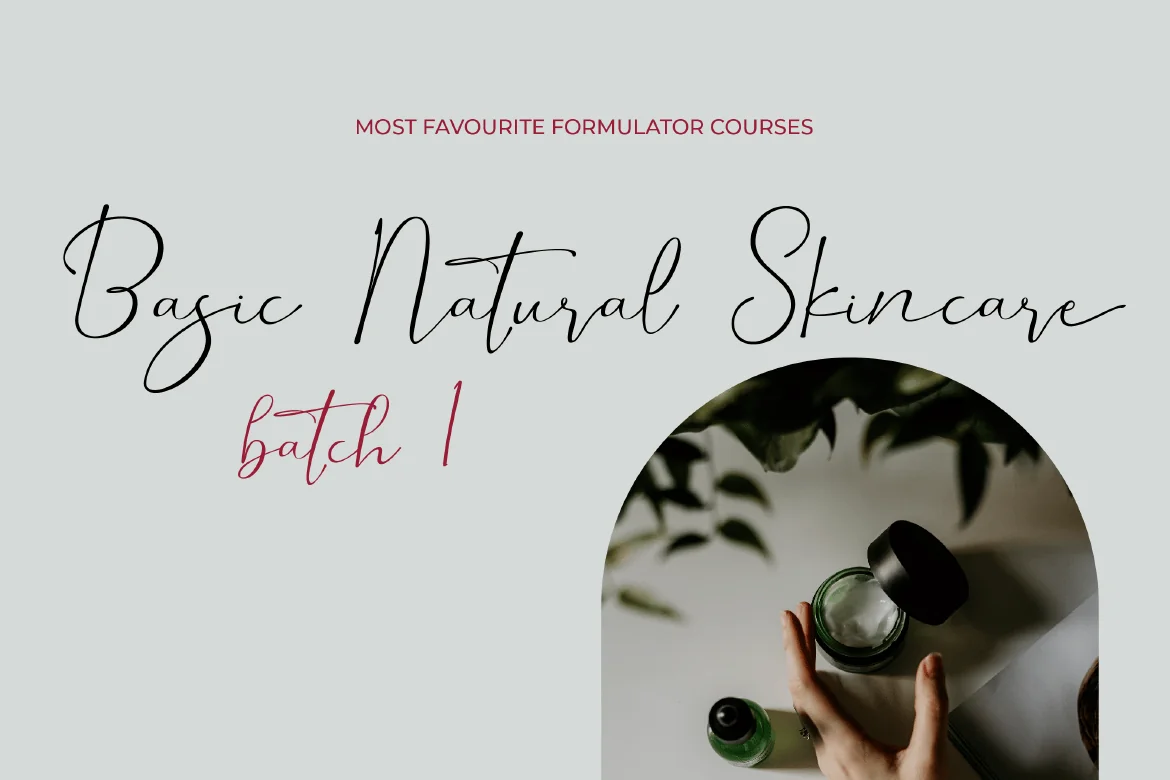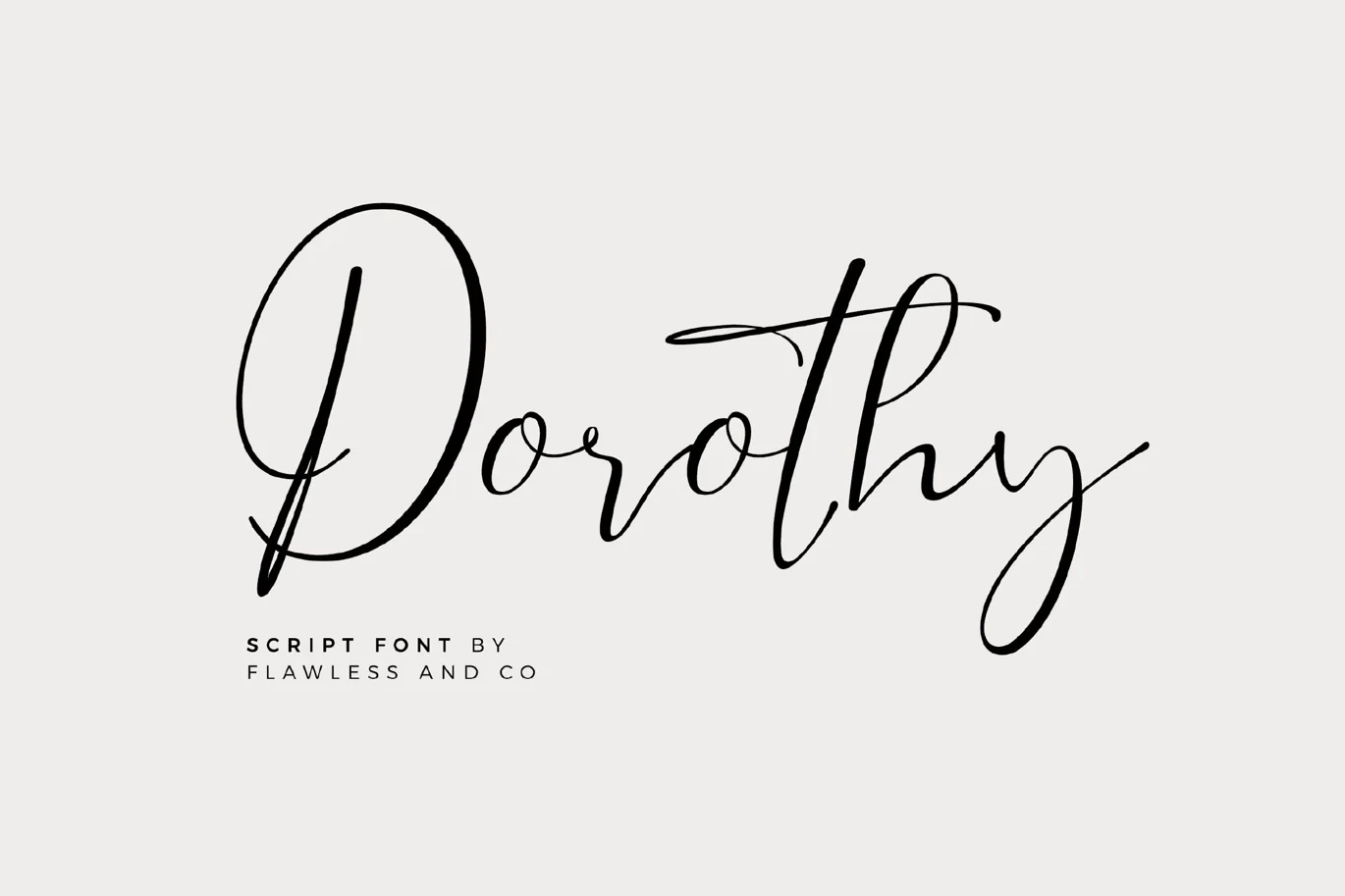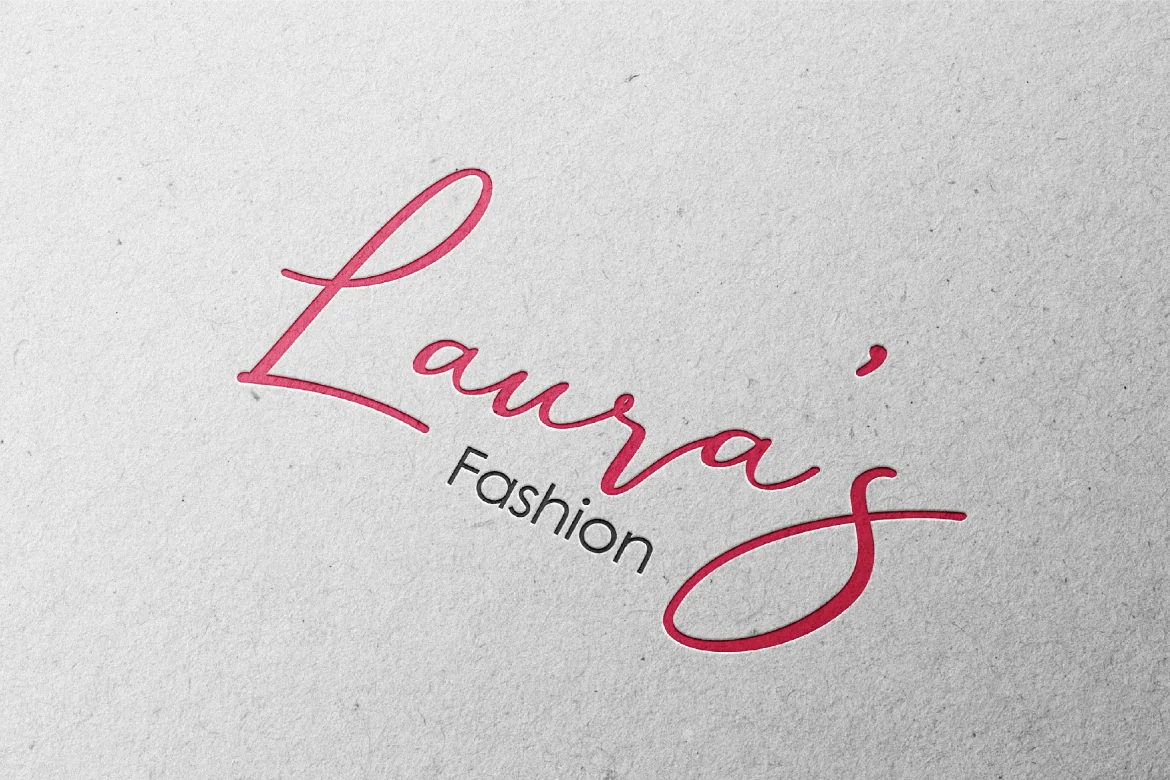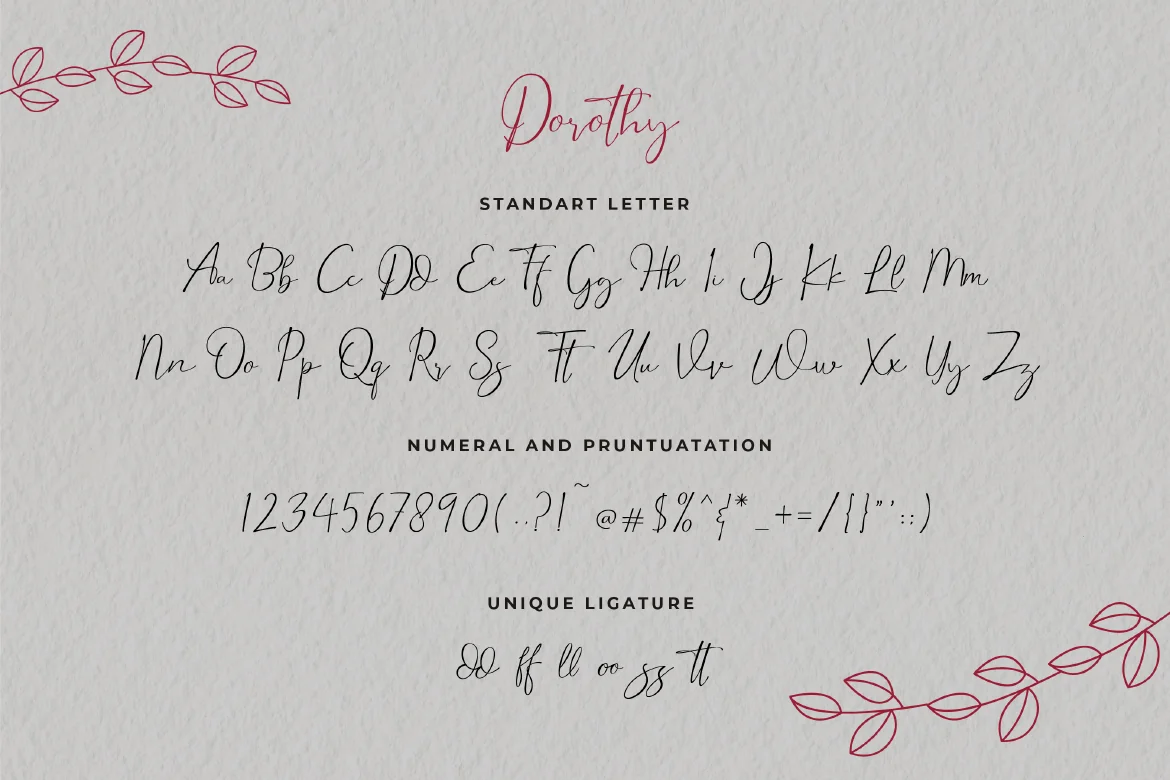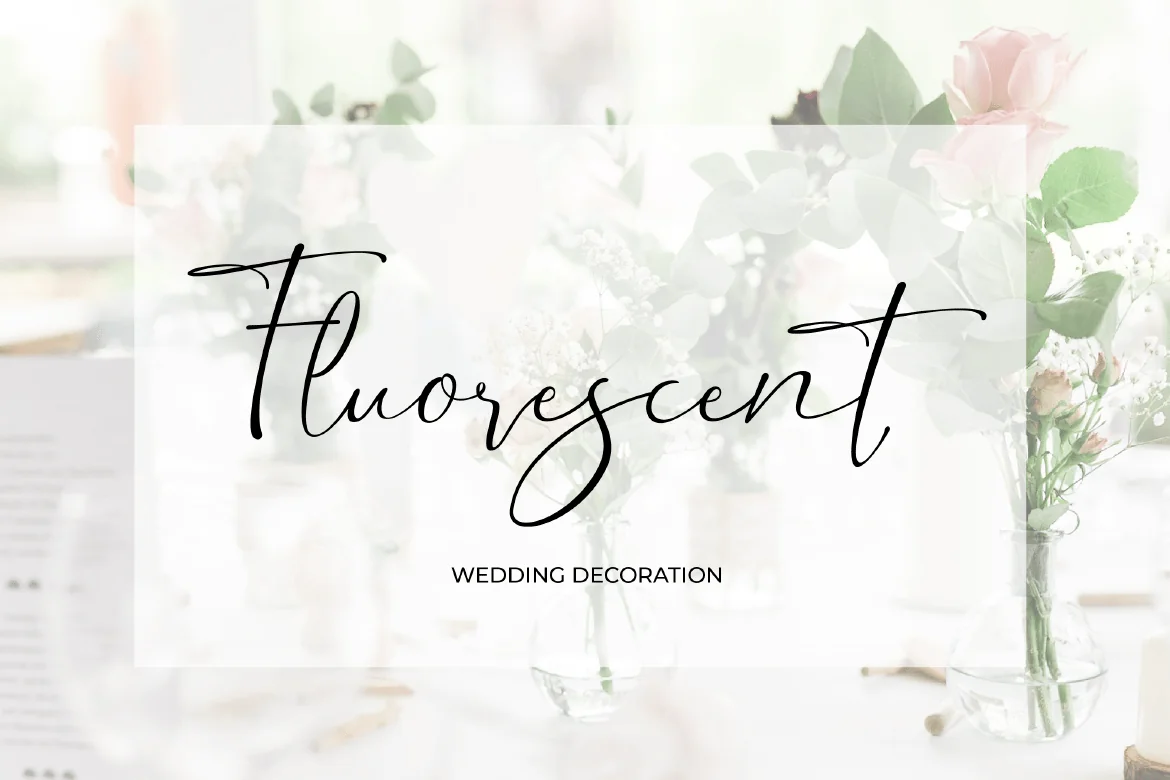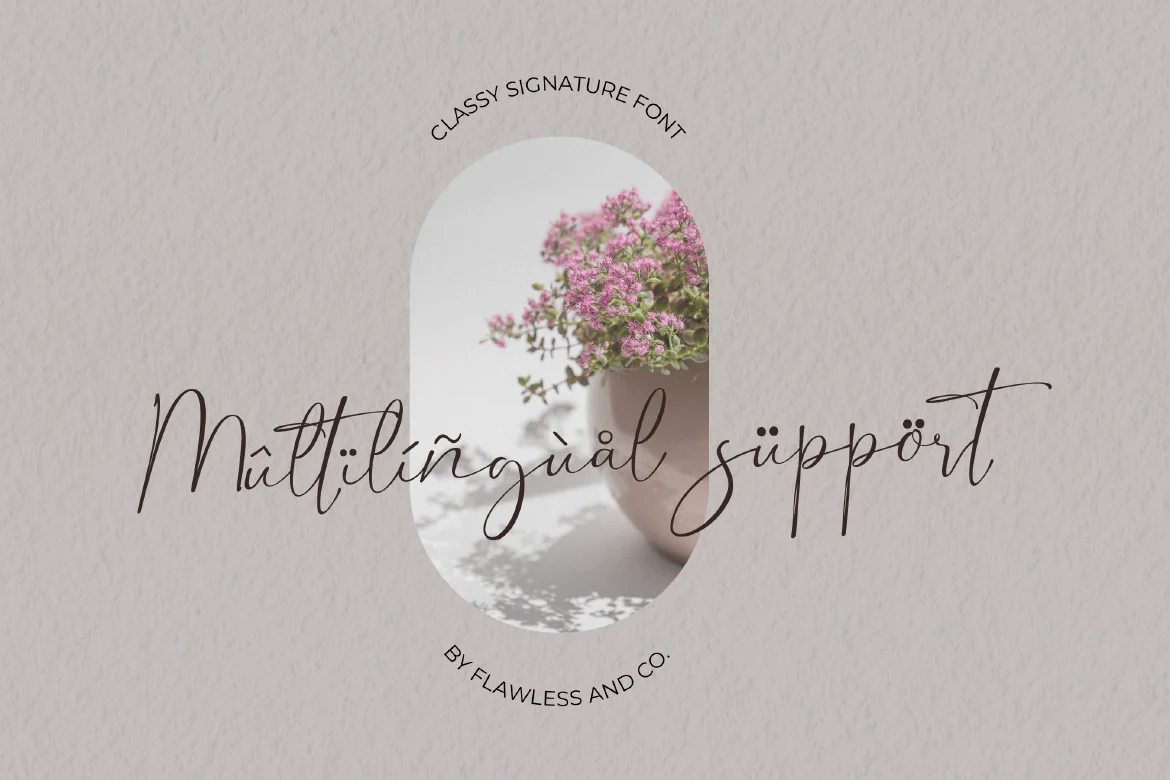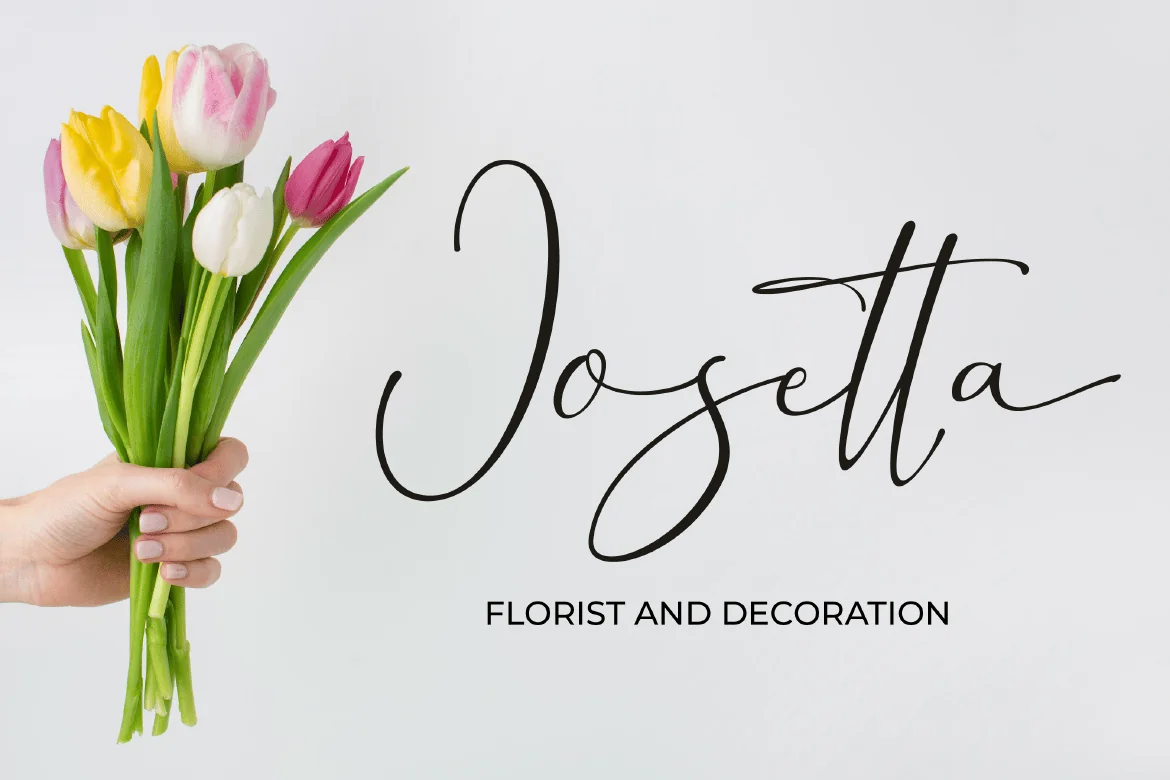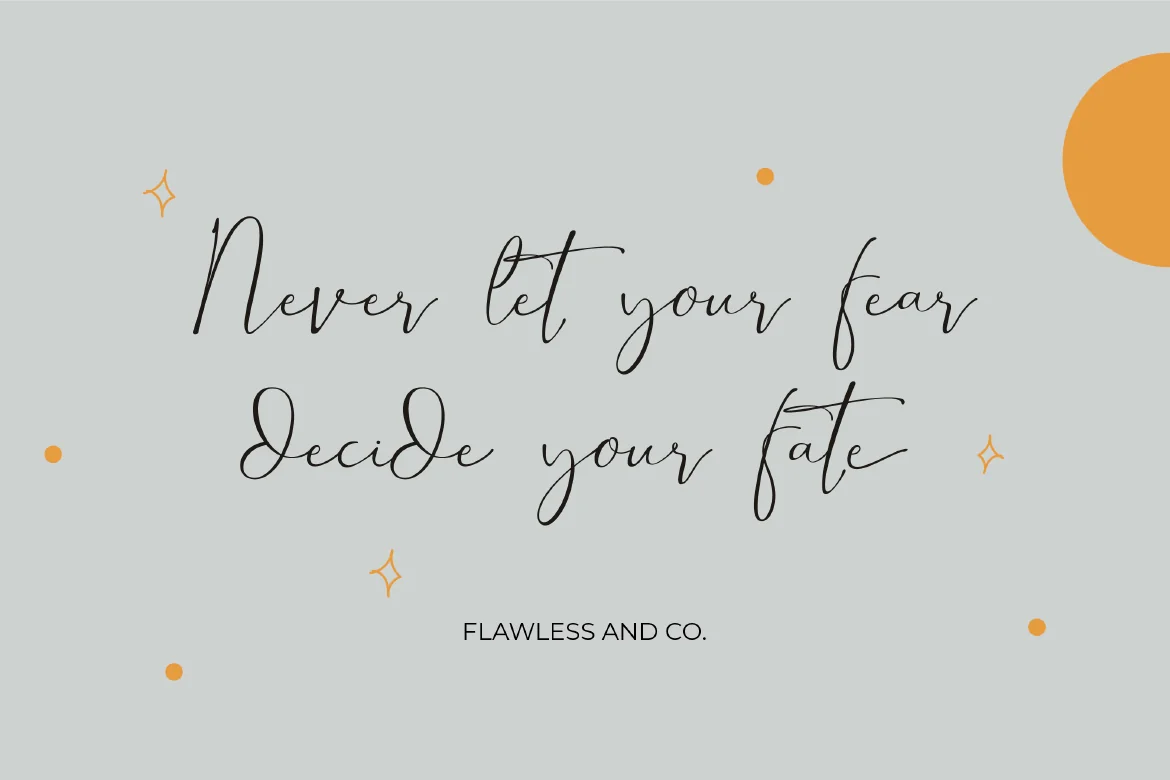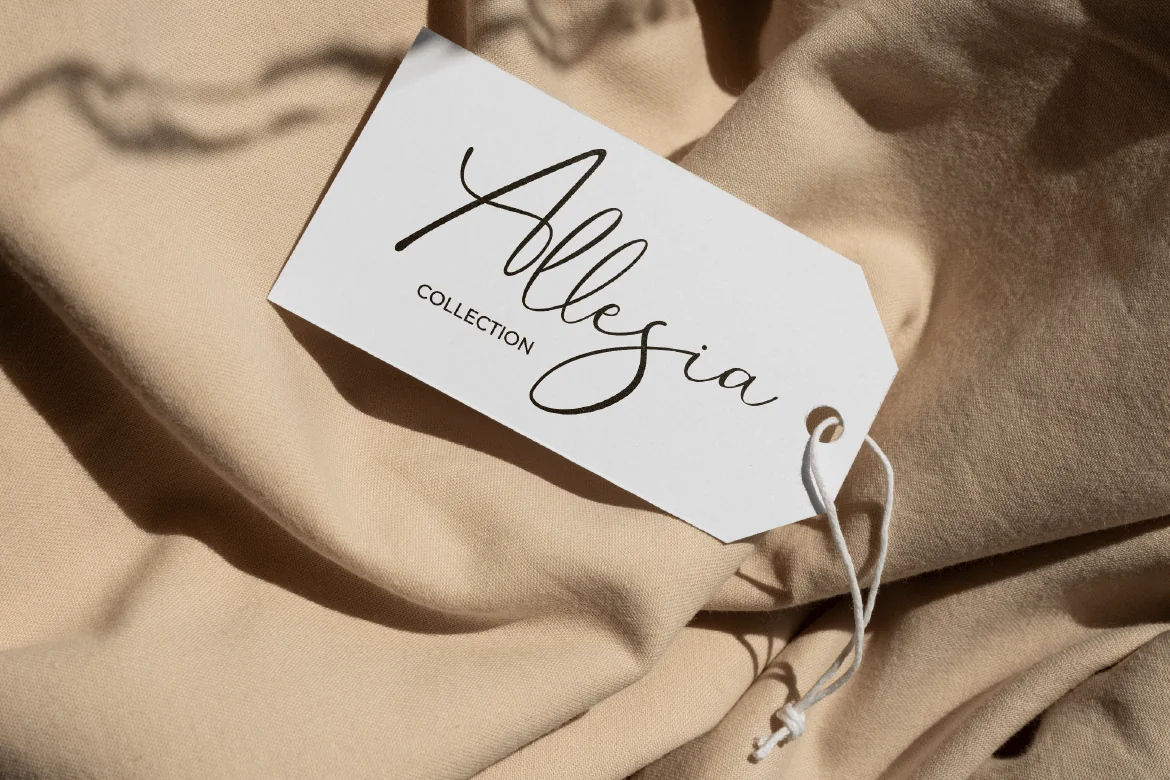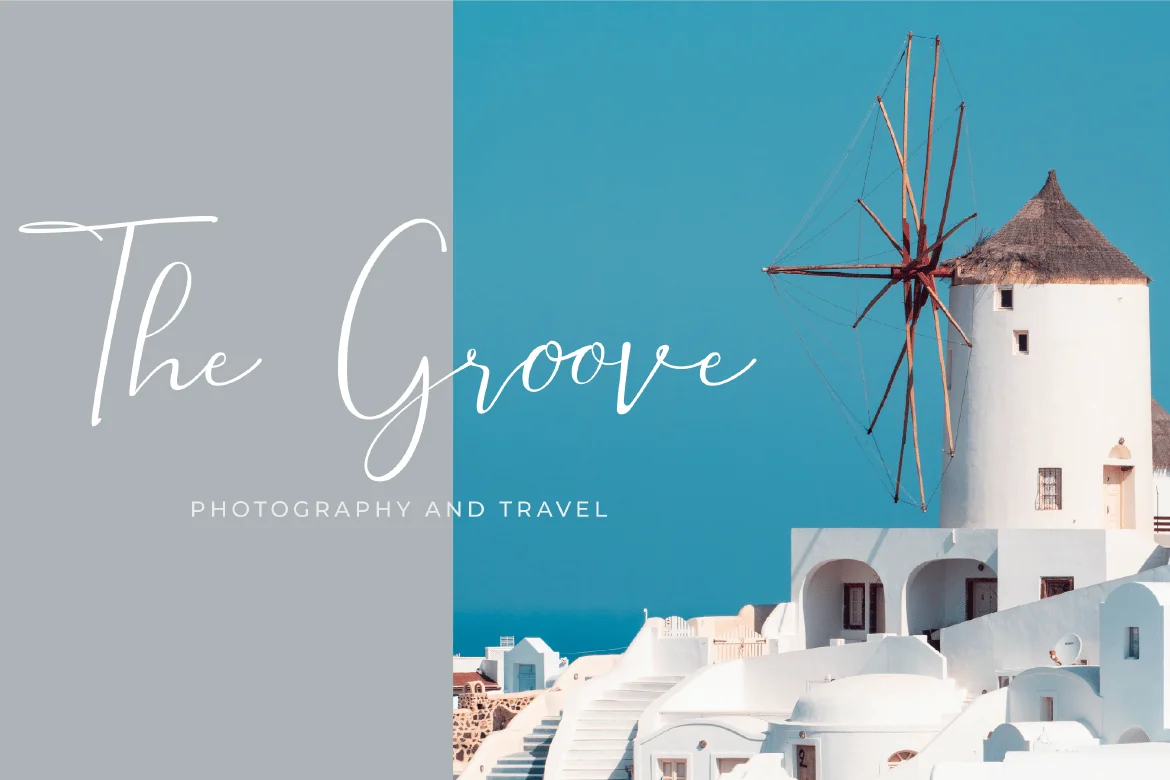
Dorothy – Handwritten Script Font
Dorothy – Modern Handwritten Script Font, Signature Font, Canva font, calligraphy Font, Cursive Font, Modern Calligraphy, Wedding Font, Handlettered, Boho Font
Saghea Modern Signature is a handcrafted script, this style gives a feel of Girly, modern, Suitable for any graphic designs such as branding materials, print, business cards, logo, poster, photography, quotes .etc
Alternate Character